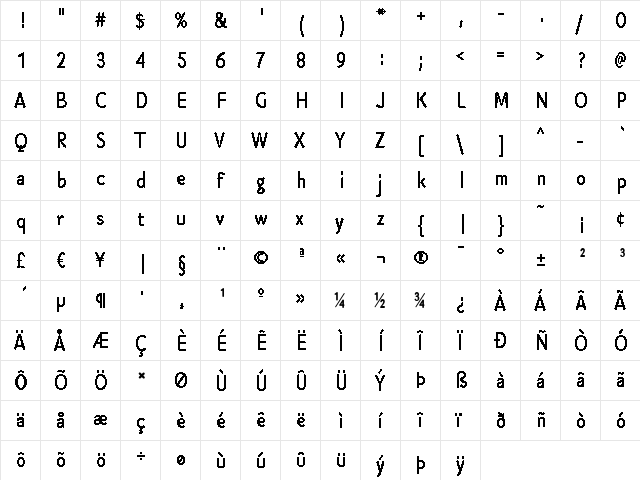
Cen Pro Bold
| Foundry | Neil Summerour/Positype |
| Designer | Neil Summerour |
Design Context for Cen Pro Typeface
Cen Pro offers clean, dependable letterforms without strong stylistic allegiance, making it a practical choice for designers who need flexibility. The heavy weight commands attention and anchors typographic hierarchies.
Pro Tip: Use Cen Pro in both headline and body roles to test its range before committing to a single application.